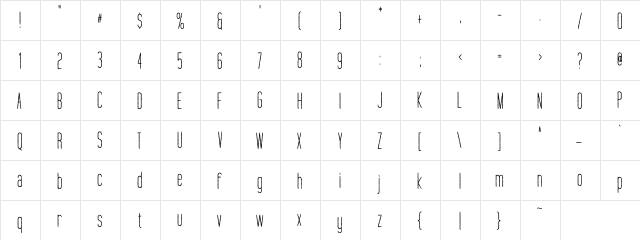
Dark of the Moon Regular
| Foundry | Fatigo |
| Designer | Fatigo |
Design Context for Dark of the Moon Typeface
Dark of the Moon takes a measured approach to typography — its balanced proportions and neutral character make it a reliable workhorse for both digital and print work.